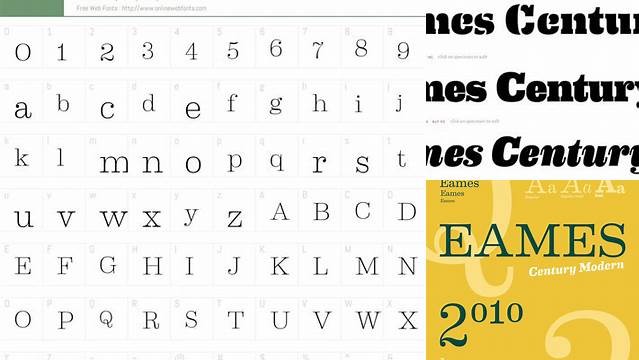
Eames Century Modern Font: Free Download Guide
Hey guys! Are you looking to add a touch of mid-century modern elegance to your designs? The Eames Century Modern regular font is just what you need. This font embodies the iconic style of Charles and Ray Eames, renowned for their innovative and timeless designs. In this guide, we'll dive into everything you need to know about this fantastic font, including how to download it for free, its history, usage, and more. So, let's get started!
1. What is Eames Century Modern Regular Font?
The Eames Century Modern regular font is a typeface inspired by the design philosophy of Charles and Ray Eames. It captures the essence of mid-century modern design, known for its clean lines, simplicity, and functionality. This font is perfect for adding a vintage yet contemporary feel to your projects. Whether you're working on a website, poster, or branding materials, this font can bring a unique and sophisticated touch.
The history of the Eames Century Modern font is deeply intertwined with the legacy of Charles and Ray Eames. Their work in furniture design, architecture, and graphic design has left an indelible mark on the world. The font reflects their commitment to creating beautiful and functional designs that stand the test of time. When you use this font, you're not just choosing a typeface; you're embracing a design philosophy.
The characteristics of the Eames Century Modern regular font include its clean and legible letterforms, balanced proportions, and subtle curves. These features make it highly readable in various sizes and applications. The font's versatility allows it to be used in both headlines and body text, providing a cohesive and polished look to your designs. Its neutral yet distinctive appearance makes it a favorite among designers aiming for a timeless aesthetic.
2. History and Inspiration Behind Eames Font
The history and inspiration behind the Eames Century Modern font are fascinating. Charles and Ray Eames were pioneers of mid-century modern design, and their work spanned various fields, including furniture, architecture, and graphic design. Their design philosophy emphasized simplicity, functionality, and beauty, principles that are clearly reflected in the font. The font pays homage to their legacy by embodying these key elements.
The Eames' design journey began in the mid-20th century, a period of significant innovation and change. Their work was a response to the needs of a rapidly evolving society, focusing on creating designs that were both aesthetically pleasing and practical. This approach is evident in their iconic furniture pieces, such as the Eames Lounge Chair and the Eames Molded Plastic Chair. These designs, characterized by their clean lines and innovative use of materials, have become symbols of mid-century modern style.
The font itself draws inspiration from the typography used in Eames' promotional materials and architectural plans. The designers sought to capture the same sense of clarity and elegance in the typeface. The result is a font that feels both modern and timeless, making it a versatile choice for a wide range of design projects. By understanding the history and inspiration behind the font, you can better appreciate its design and use it effectively in your work.
3. Key Features of Eames Century Modern Regular
Let's talk about the key features of the Eames Century Modern regular font. What makes it so special and why should you consider using it in your projects? Well, there are several characteristics that set it apart. First and foremost, its clean and legible design ensures that your text is easily readable, whether it's a headline or body copy. This legibility is crucial for ensuring your message gets across effectively.
Another standout feature is its balanced proportions. The letters are carefully crafted to create a harmonious and visually appealing composition. This balance gives the font a sense of stability and elegance, making it suitable for a variety of applications. Whether you're designing a logo, website, or print materials, the balanced proportions of the Eames Century Modern regular font will contribute to a polished and professional look.
Additionally, the font incorporates subtle curves that add a touch of softness and warmth. These curves prevent the font from feeling too rigid or sterile, giving it a friendly and approachable quality. This blend of clean lines and gentle curves makes the Eames Century Modern regular font a versatile choice that can complement a wide range of design styles. Its unique combination of features makes it a valuable asset in any designer's toolkit.